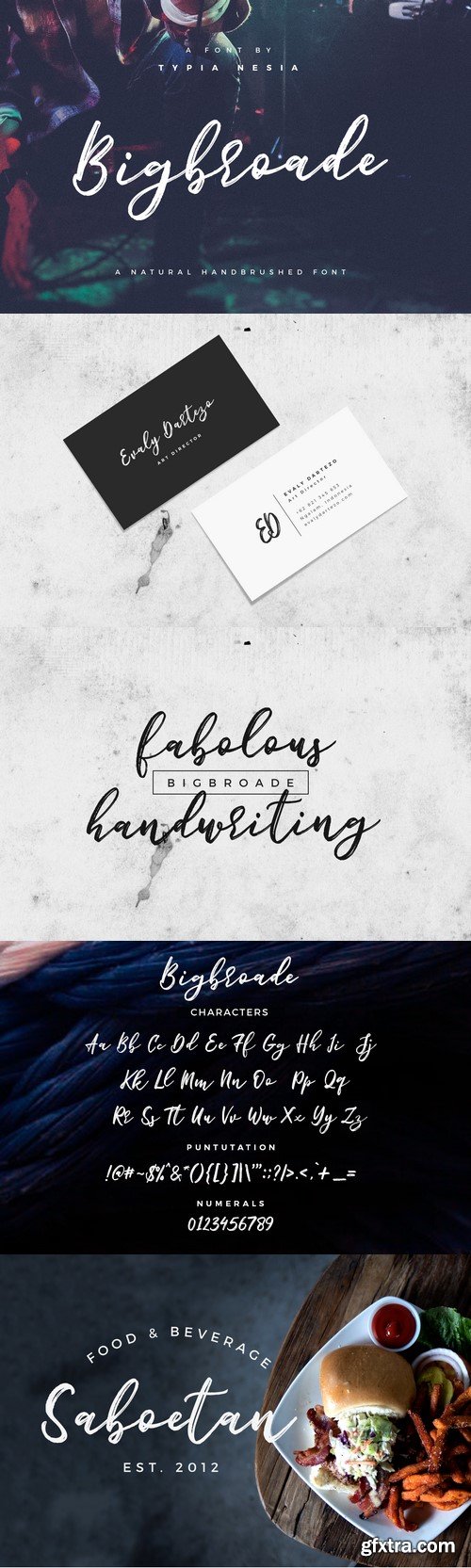
Bigbroade is a fabolous hand brushed font. Bigbroade font is suitable for any design needs, modern invitation design, branding, blog design, modern advertising design, invitation, Art Quote, Home decor, Book/Cover Title, Invitation, special events, birthday, custom mug, pillow, t-shirts, any handbrushed signature style needs and more. Bigbroade font comes with upper and lowercase Standard Characters, Punctuation, Numerals. Files included : Bigbroade.ttf and Bigbroade.otf Thank you, hope you’re having fun with Bigbroade ! Happy creating!